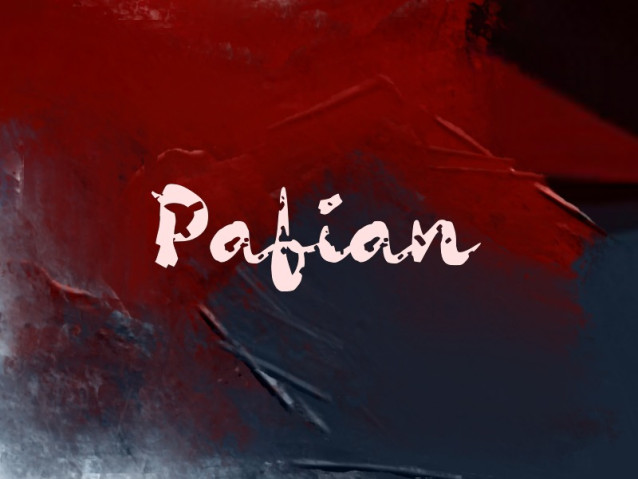
Pafian Font
Pafian Font is a simple and modern display font suitable for quotes, logos, headings, titles, and many more. Use it on any of your creative projects, and your designs will become outstanding!